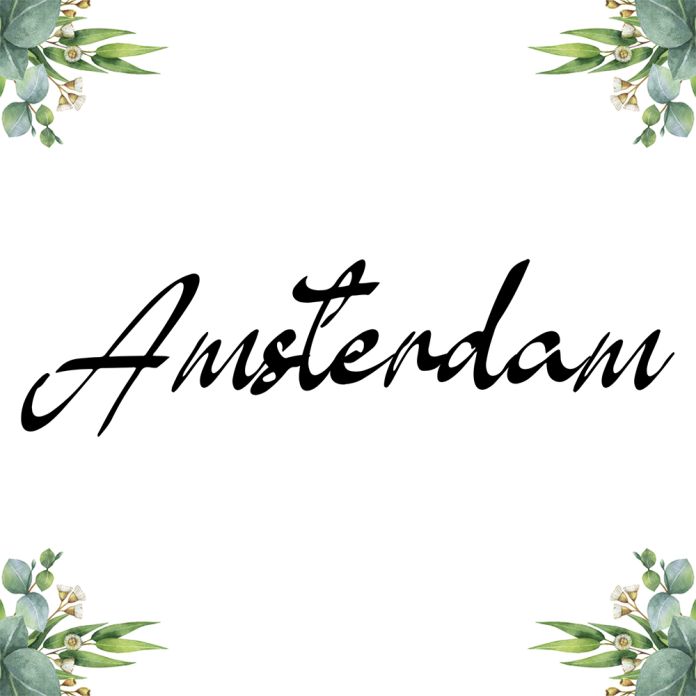
Amsterdam is a delicate, elegant and flowing handwritten font. It has beautiful and well balanced characters and as a result, it matches a wide pool of designs. Amsterdam is PUA encoded which means you can access all of the glyphs and swashes with ease!